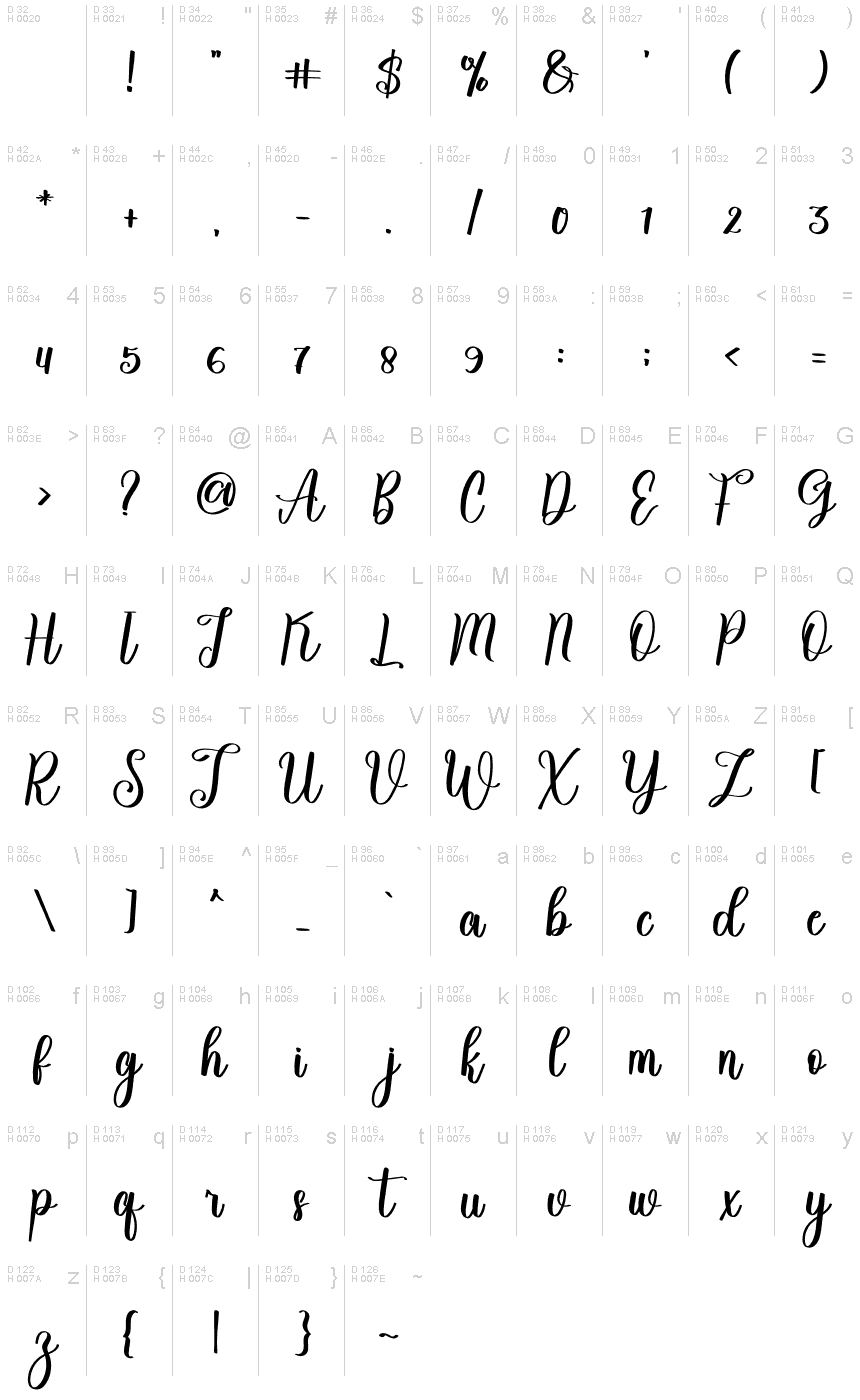
Santina
Santina, a mesmerizing calligraphy font designed by FreshtypeINK, brings elegance and sophistication to your projects. Its graceful strokes and intricate curves make it perfect for wedding invitations, feminine branding, or luxurious product packaging. With its timeless appeal, Santina adds a touch of class to formal event flyers and high-end restaurant menus. This typeface captures attention with its exquisite details and can elevate any fashion lookbook or beauty blog. Santina's versatility allows it to shine in both digital and print media, making it an ideal choice for logo design, magazine covers, and artistic posters.